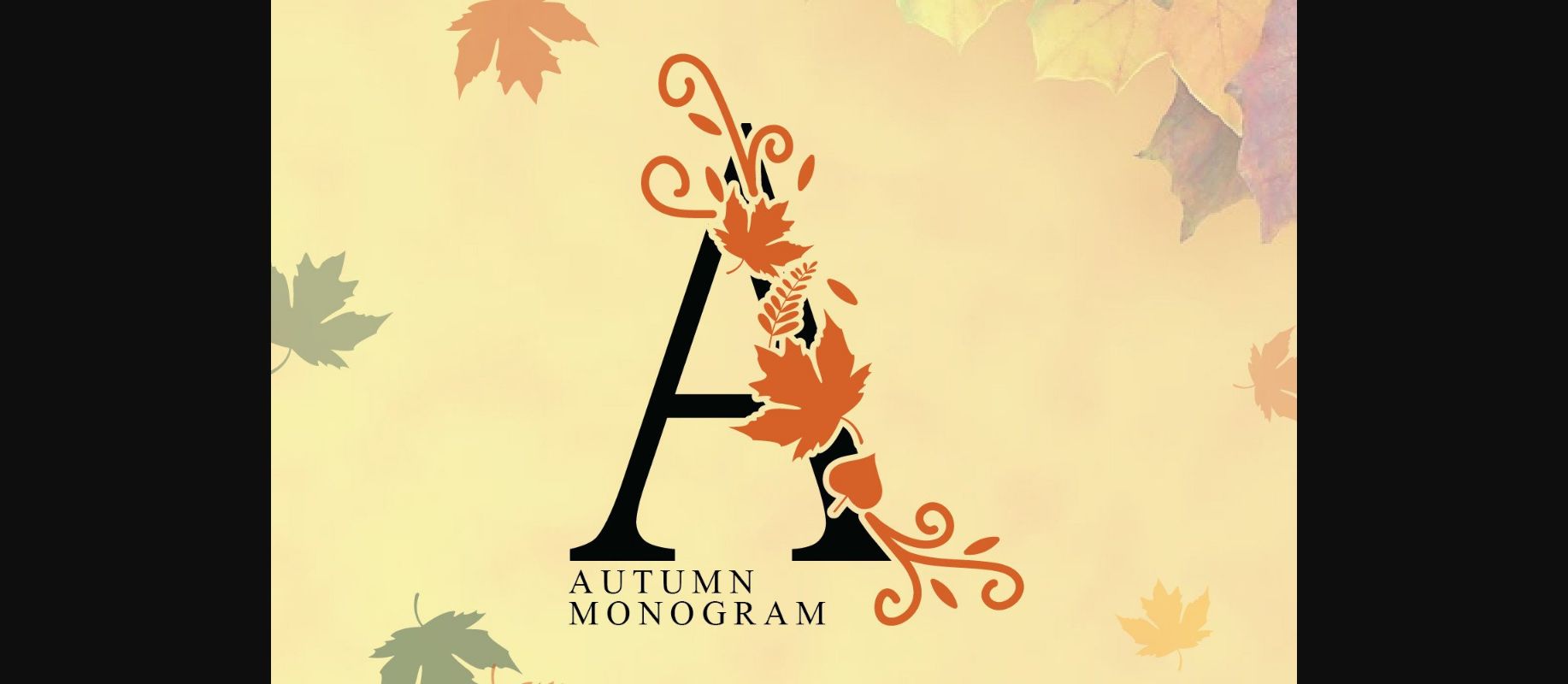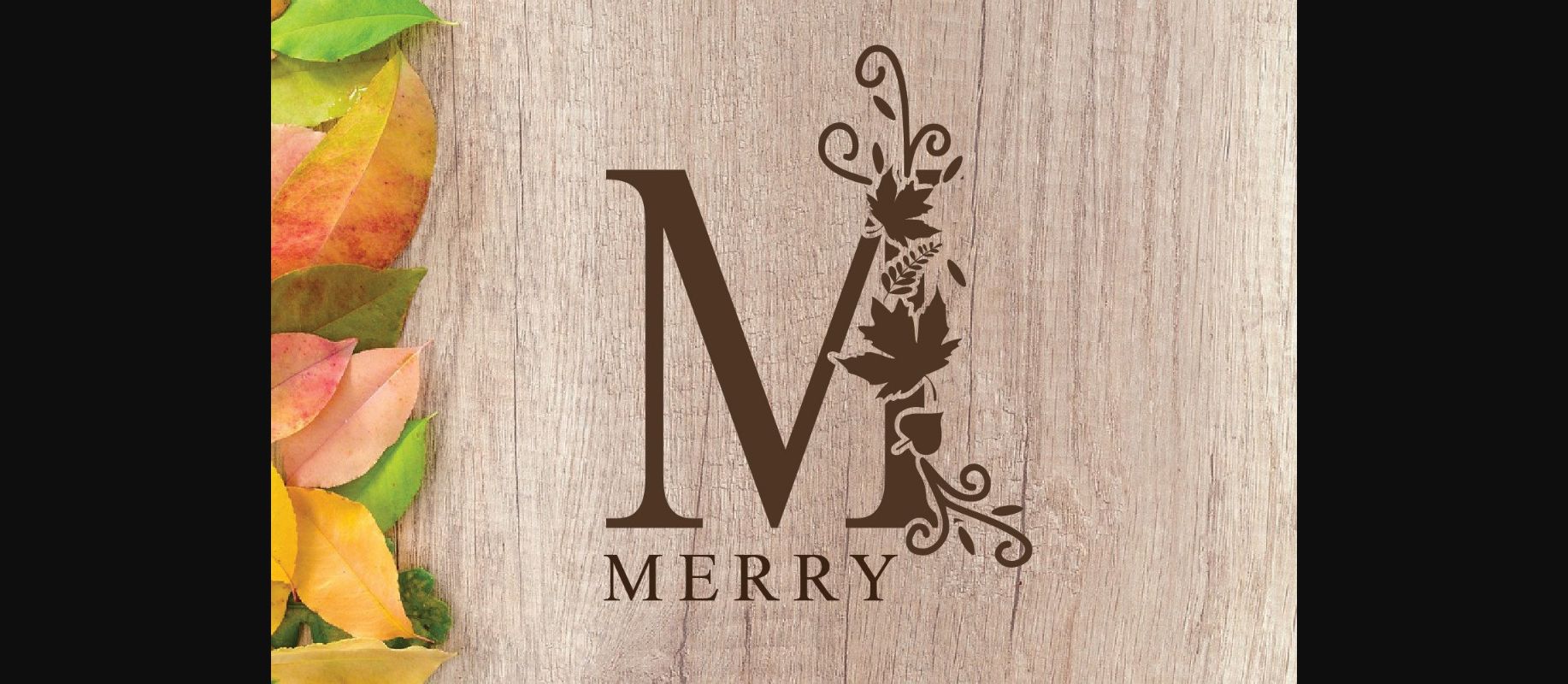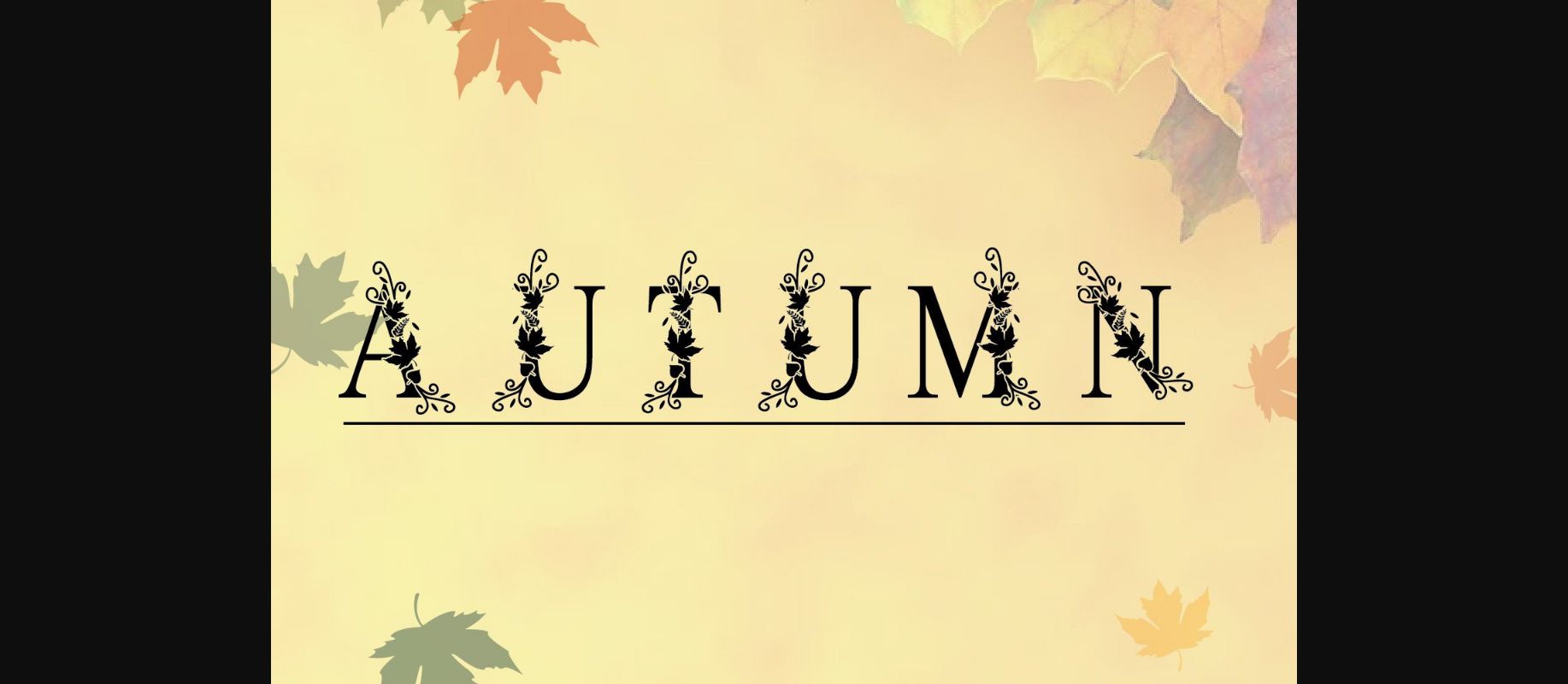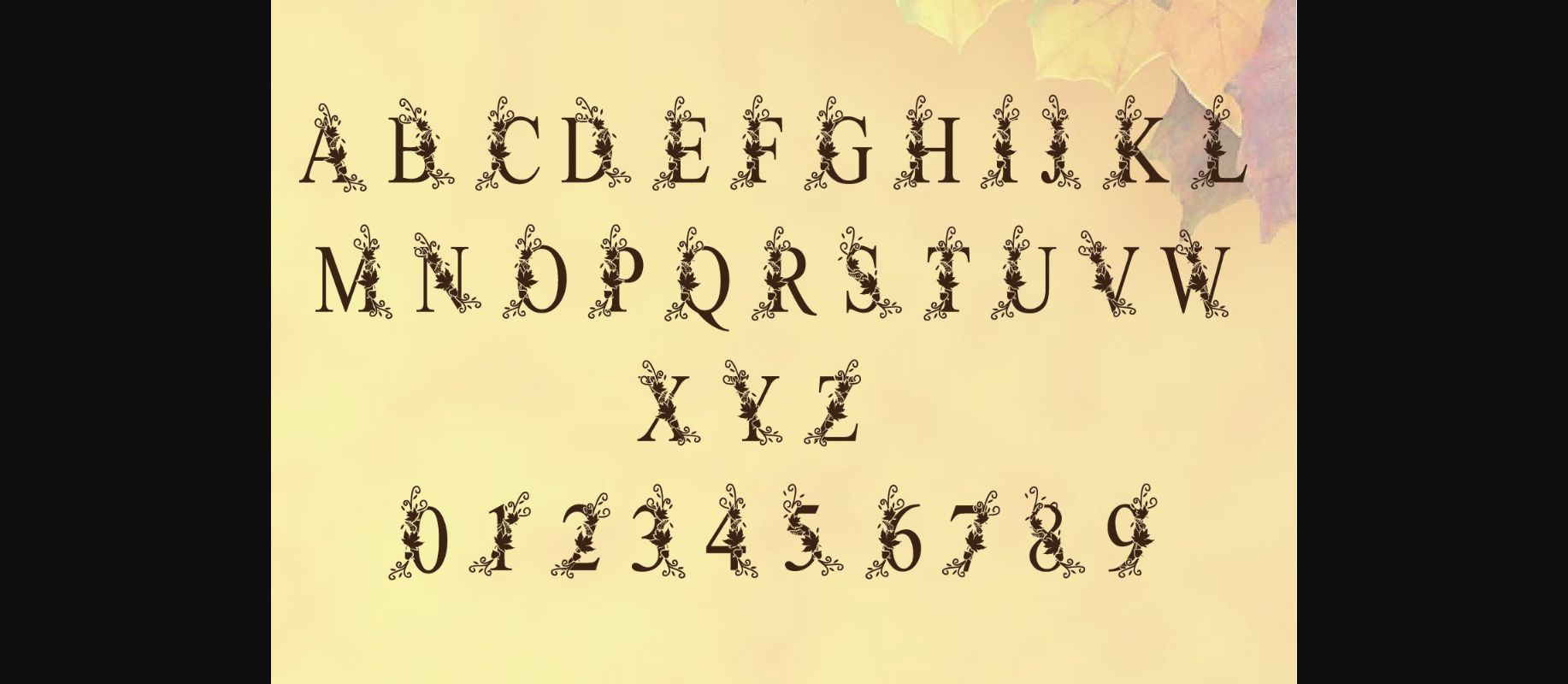
About Autumn Monogram Font
Autumn Monogram is a gorgeous and stylish decorative font. This monogram font has an amazing look for autumn designs, and it will elevate any creation!